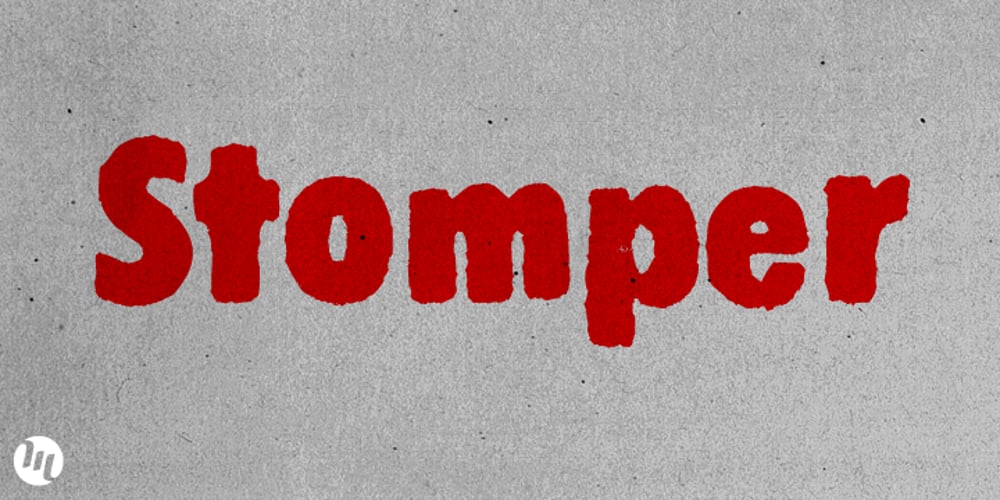
Stomper Font Family was designed by Matthew Aaron Desmond and published by MADType. Stomper contains 2 styles and family package options. Inky and grungy, Stomper is perfect for your layouts that require the look of imperfection.